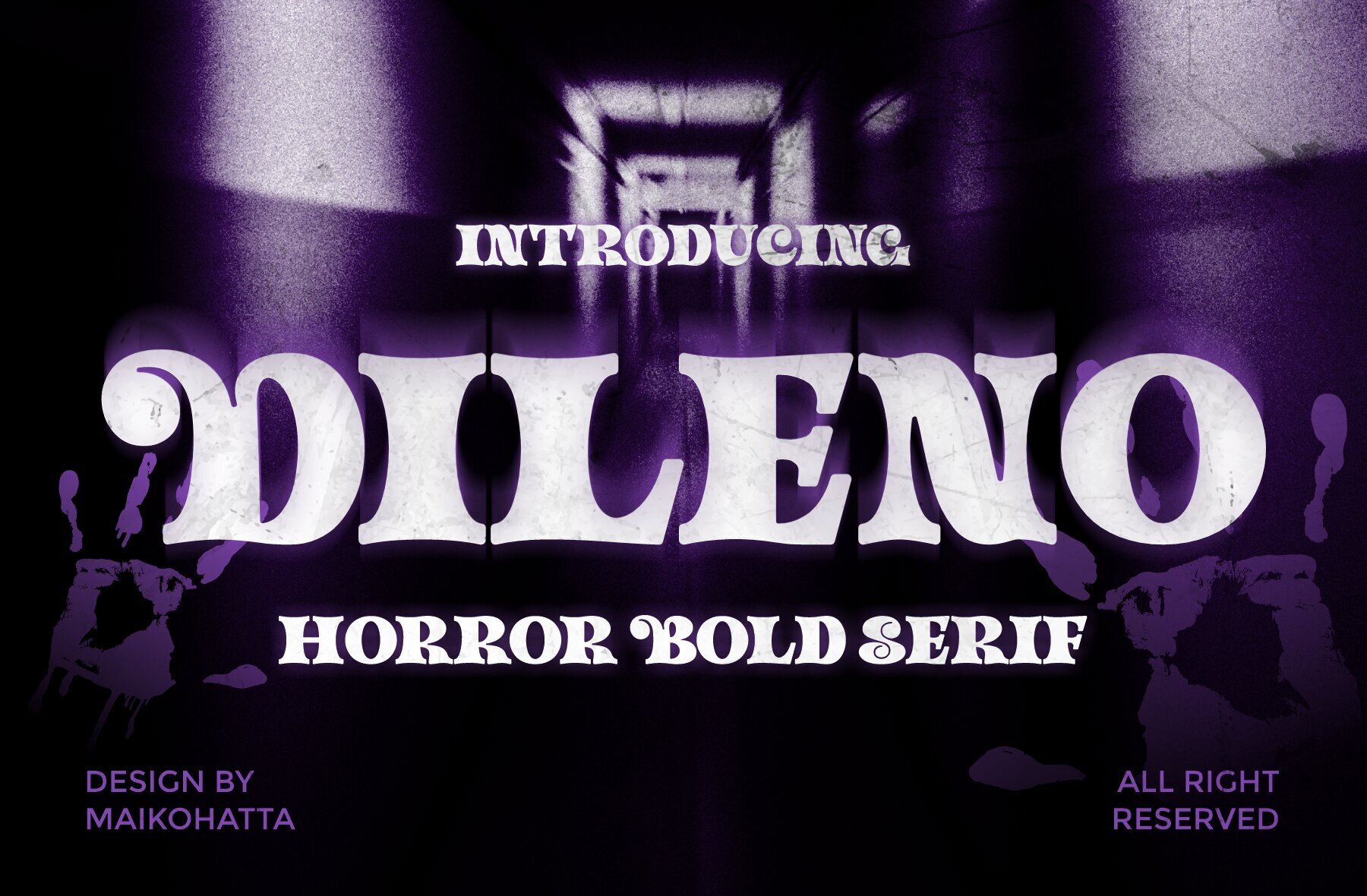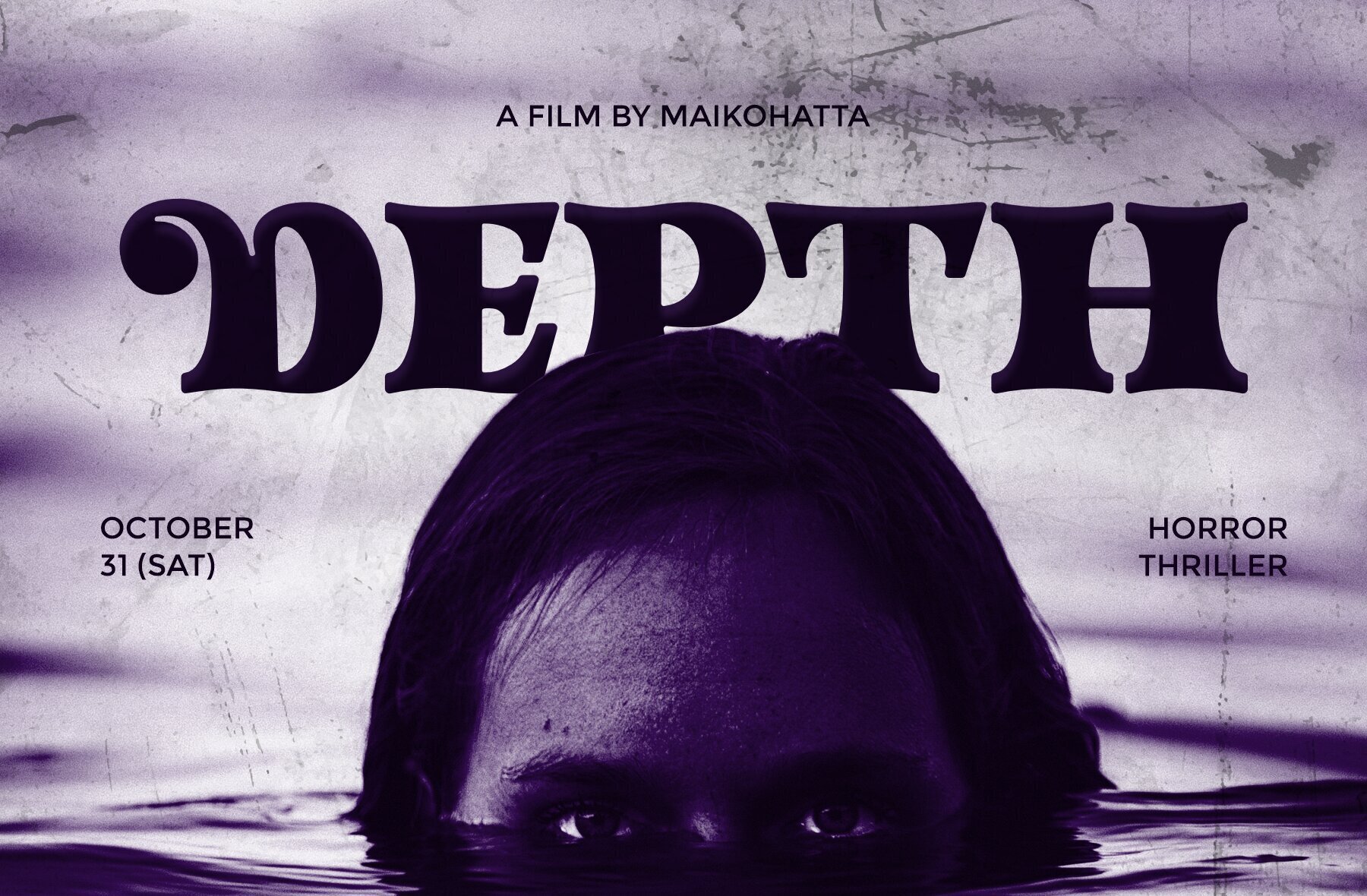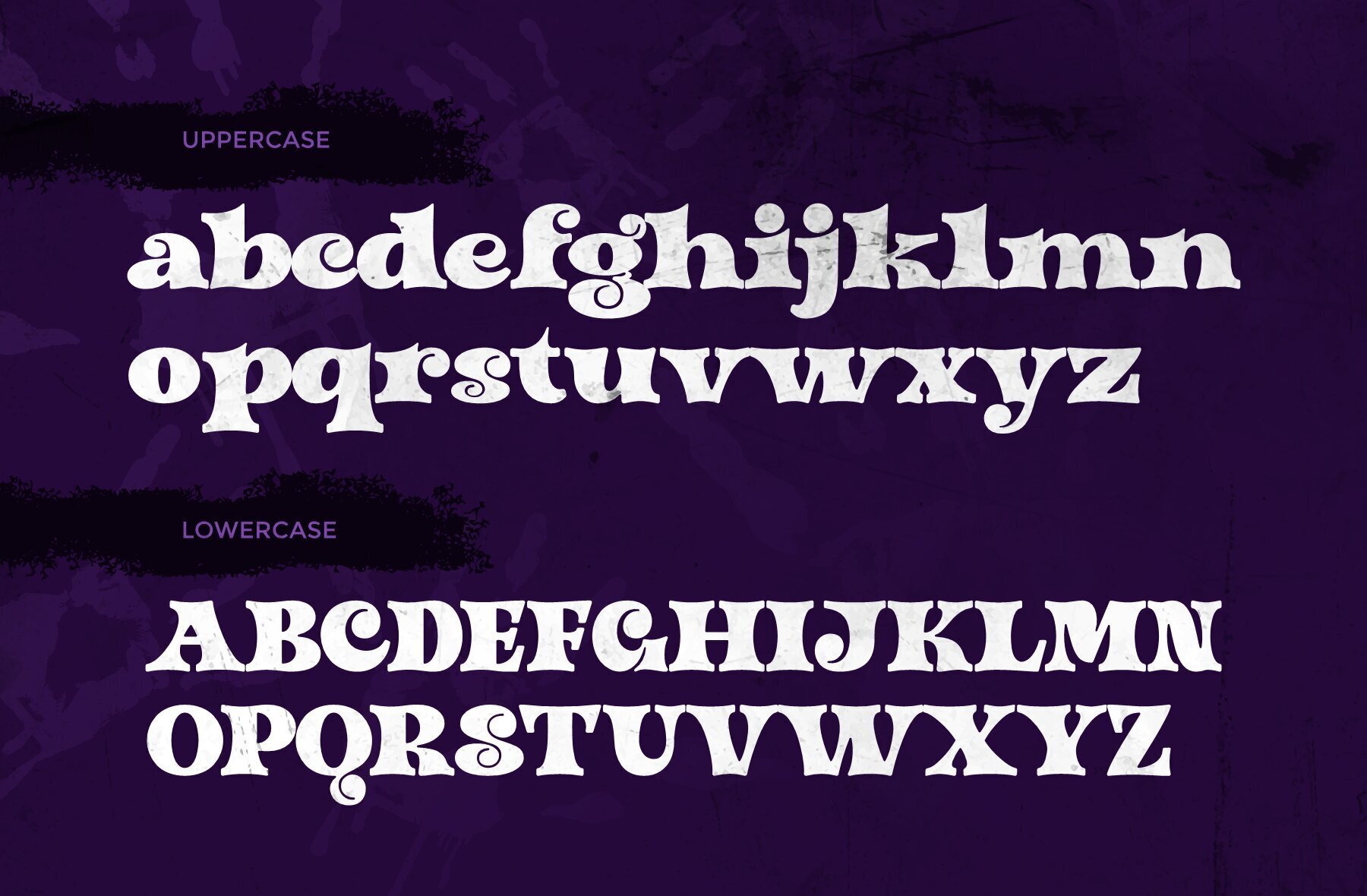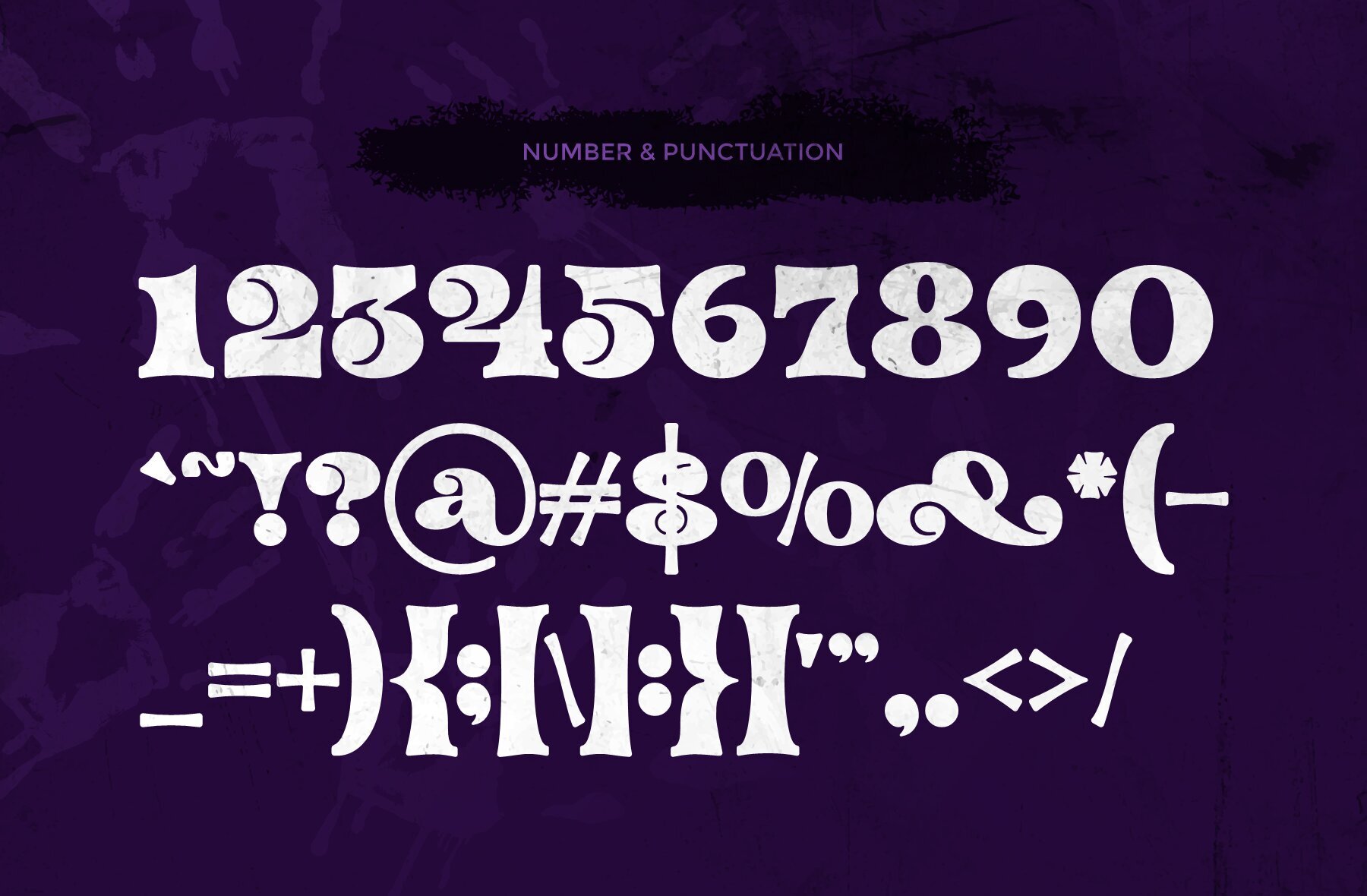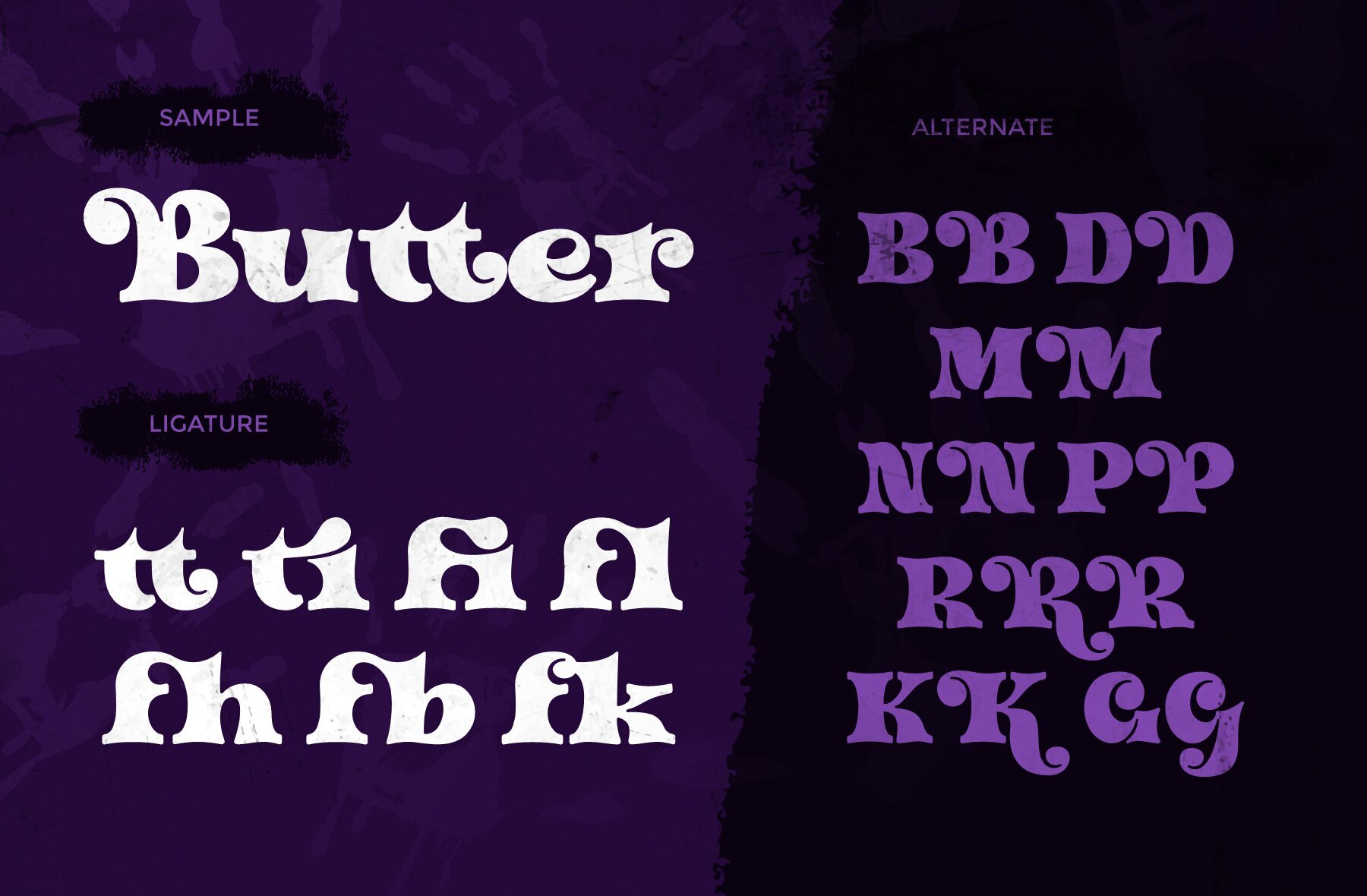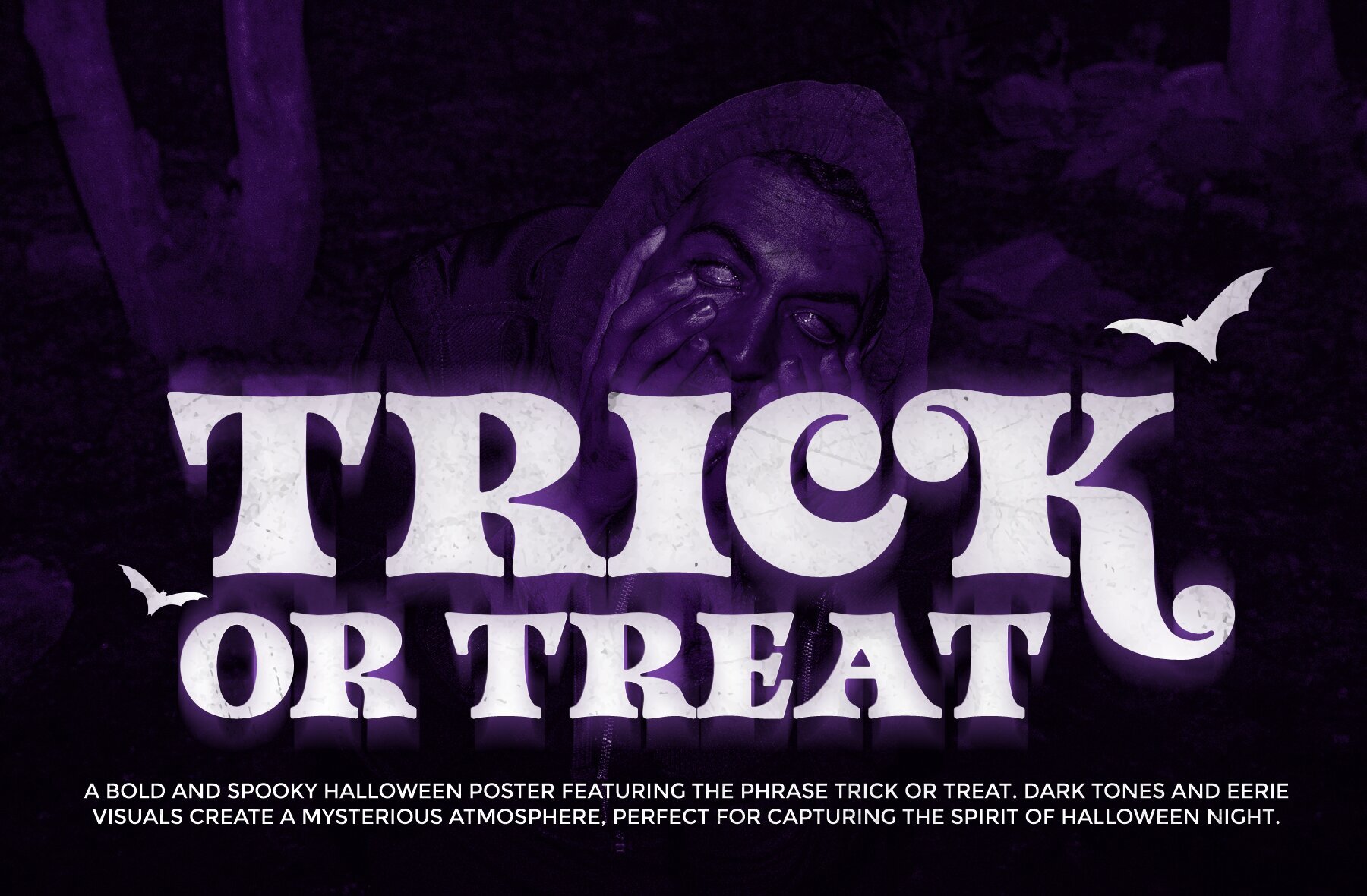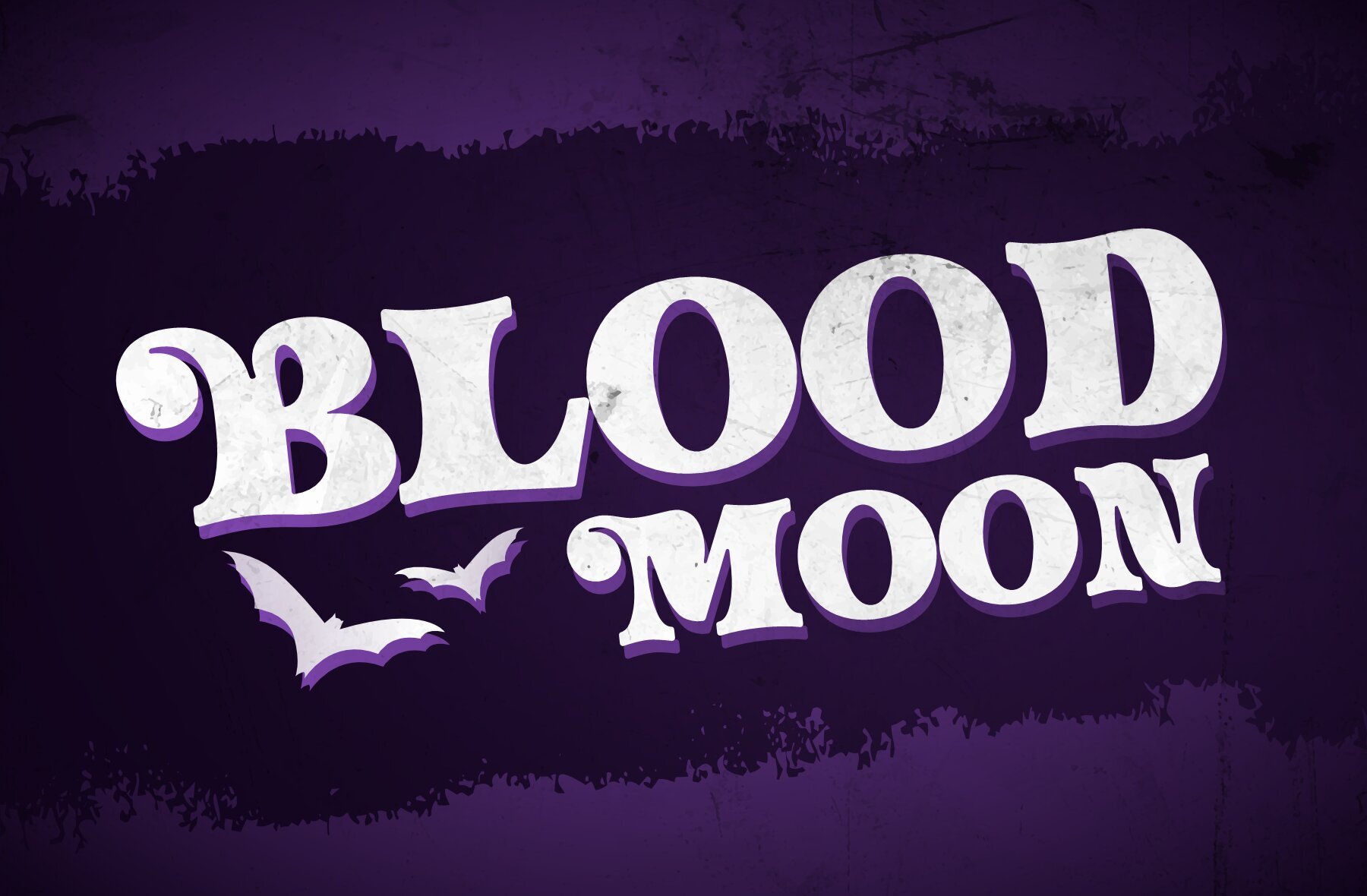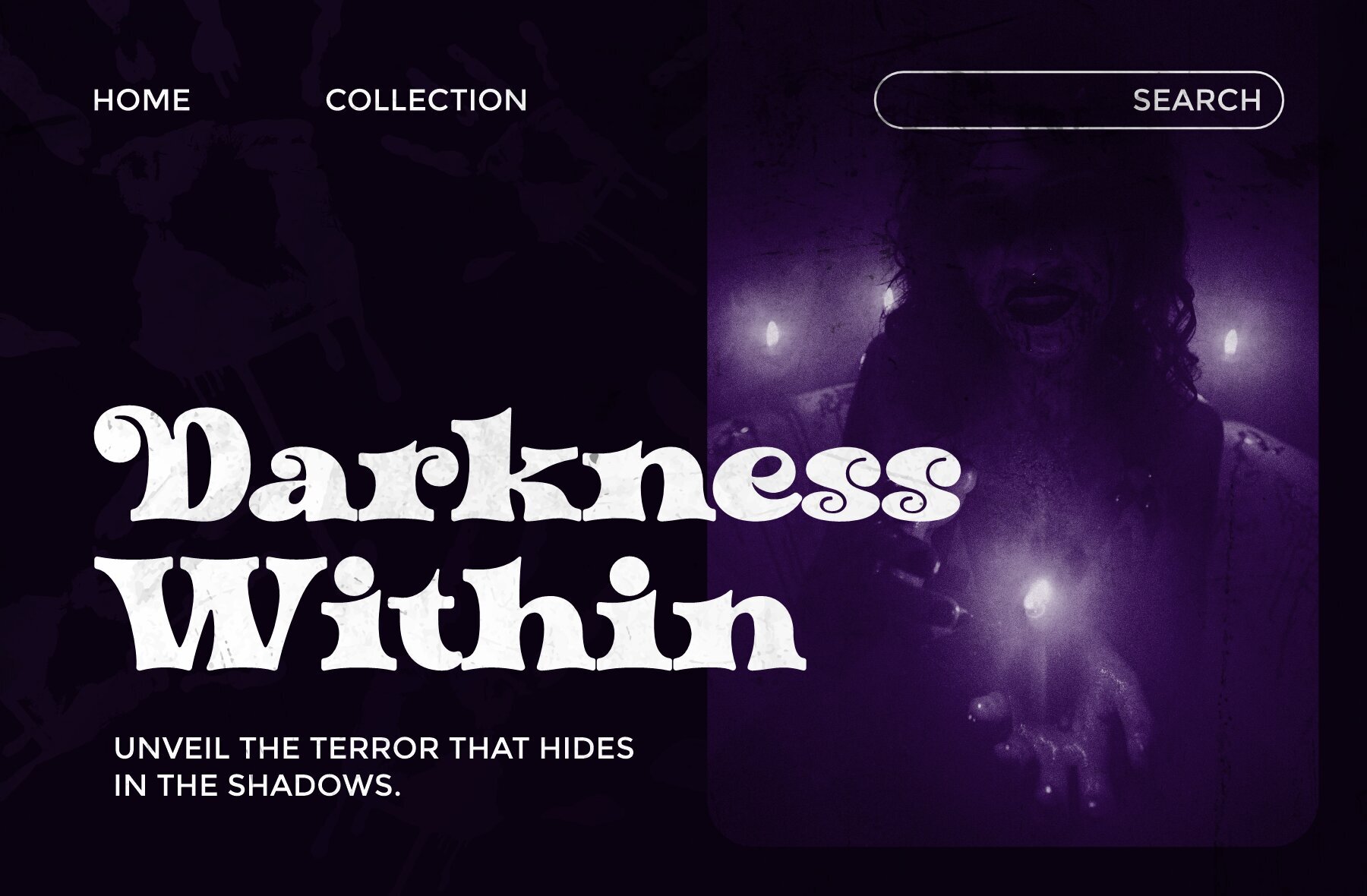
Dileno Font
DILENO
Step into a world of intrigue with Dileno, a bold serif typeface exuding a spine-chilling, horror-inspired flair. With its thick strokes, dramatic curves, and distressed textures, Dileno perfectly encapsulates an eerie yet stylish atmosphere. This font is a fantastic choice for dark or mysterious themes, breathing life into horror movie titles, Halloween posters, gothic branding, and book covers requiring a strikingly bold touch.Dileno: A Bold Serif Typeface with a Mysterious Edge
Features of Dileno Typeface